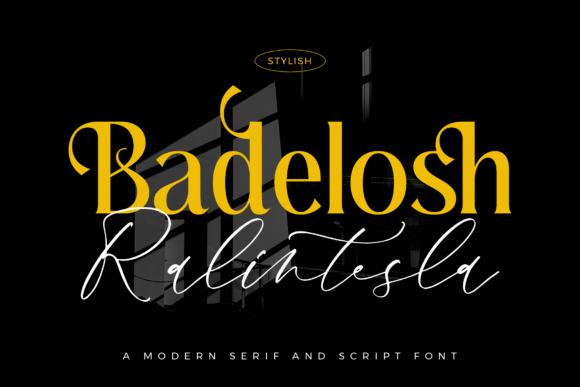
Introducing the extraordinary Badelosh Ralintesla Font Duo, a masterpiece created by the renowned Storytype Studio. This impeccable serif and script typeface boasts a distinctive style and a modern aesthetic that is guaranteed to captivate your senses.
Are you in search of the perfect font to elevate your projects to new heights? Look no further! Badelosh Ralintesla Font Duo is your ultimate solution. With its elegant and luxurious vibe, this font is specifically designed to enhance your logo, book or movie title design, fashion brand, magazine, clothes, lettering, quotes, and so much more.
Unleash your creativity and leave a lasting impression with this remarkable font duo. Crafted with utmost precision and attention to detail, Badelosh Ralintesla Font Duo exudes sophistication and uniqueness. Every character is meticulously designed to reflect the perfect balance between tradition and modernity.
Imagine the impact this font can have on your science poster. Envision your audience being instantly captivated by the professionalism and elegance that Badelosh Ralintesla Font Duo brings to your project. Its versatility allows it to seamlessly blend with any design, making it the ideal choice for scientific presentations that demand attention and authority.
But why settle for ordinary fonts when you can have the best? Badelosh Ralintesla Font Duo combines beauty with functionality, enabling you to effortlessly create stunning visuals that leave a lasting impression. Its extensive range of characters and ligatures offers endless possibilities, allowing you to express your creativity without limitations.
With Badelosh Ralintesla Font Duo, you are not just investing in a font; you are investing in a world of possibilities. Let your imagination run wild and watch as your designs come to life with a touch of elegance and sophistication that only this font can provide.
Don't miss out on this opportunity to enhance your projects and make them truly extraordinary. Join the countless designers who have already fallen in love with Badelosh Ralintesla Font Duo. Experience the power of this remarkable font and unlock a whole new level of creativity.